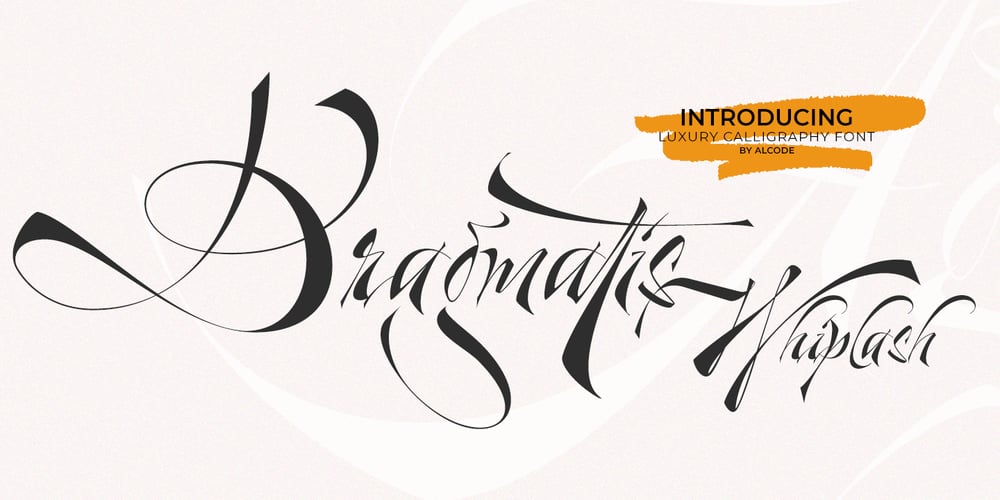
Dragmatis Whiplash
Dragmatis Whiplash font
Dragmatis Whiplash Font Family was designed by Sukjana Almunandar and published by Alcode. Dragmatis Whiplash contains 1 styles and family package options. Dragmatis Whiplash is a classic font, I built it with my relaxed hands. designing a classic font but having a modern element in it, which makes it particularly suitable for wedding media, book covers, greeting cards, logos, branding, business cards and certificates, in fact for any design work that requires a clasik, formal or luxurious.Includes multilingual supportTry Dragmatis Whiplash, enjoy the richness of OpenType features and let her fun and elegant excitement make you happy and enhance your creativity! You can use this font very easily.Do not forget to see, buy, like and share my other great products, klick here.